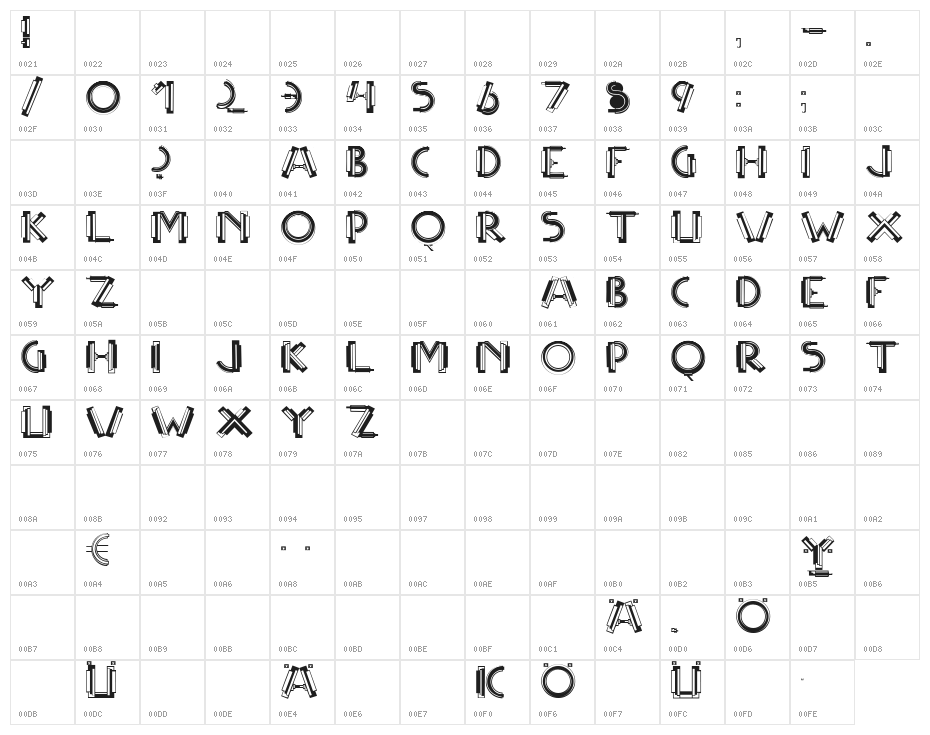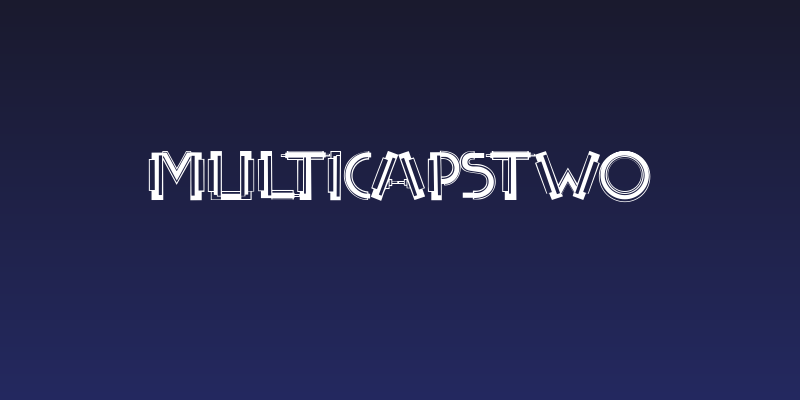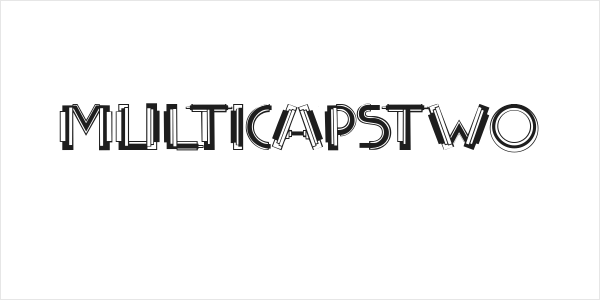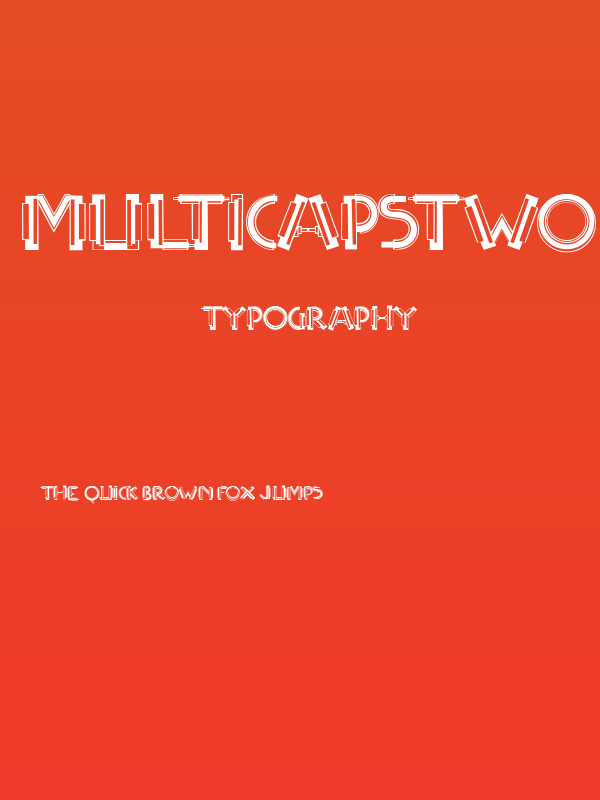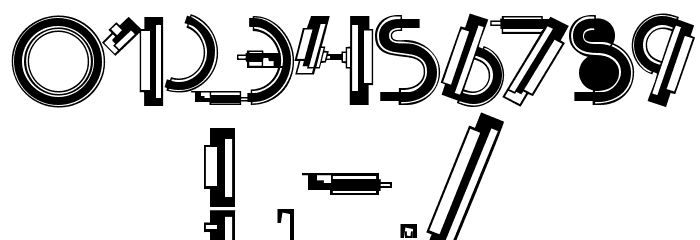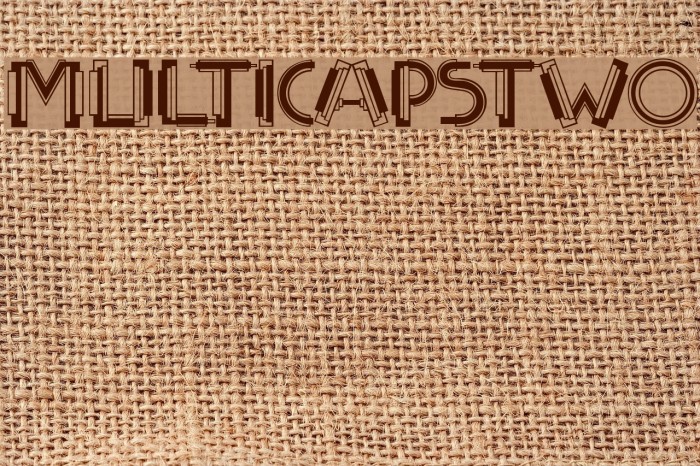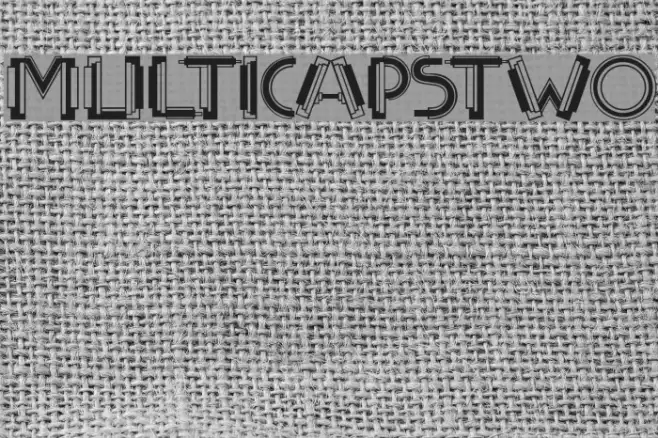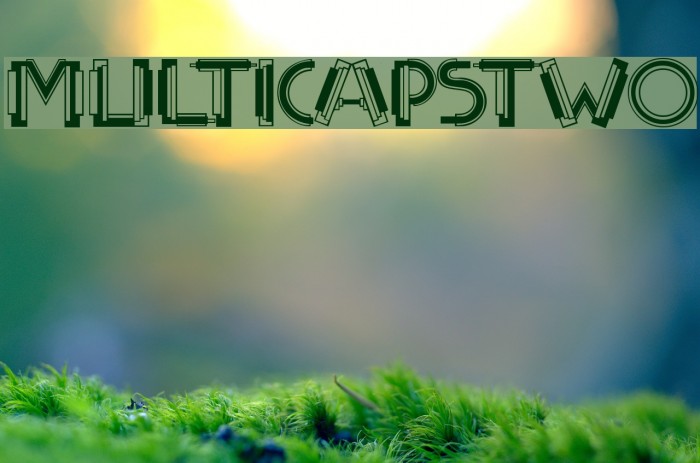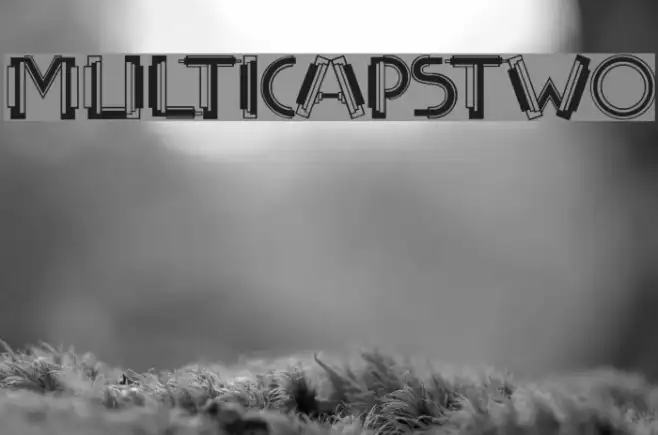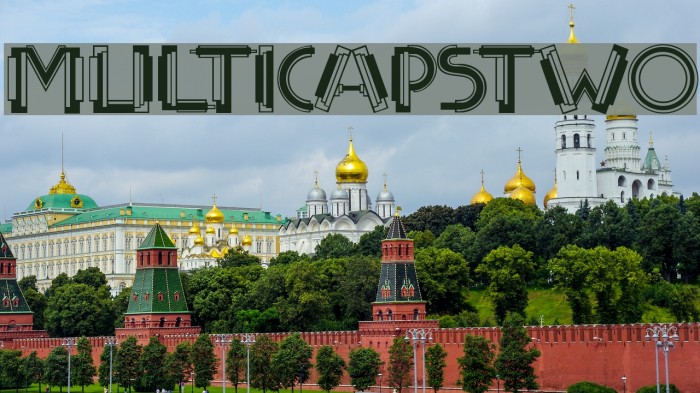
MultiCapsTwo Font
MultiCapsTwo Description
This font features a bold and striking design with a three-dimensional effect, achieved through the use of layered outlines and shadows. The characters are uppercase, with a geometric and angular style that gives them a modern and industrial feel. The letters are constructed with thick lines and sharp angles, creating a sense of depth and movement. The numbers and special characters follow the same design principles, ensuring consistency across the typeface. This font is ideal for projects that require a strong visual impact and a contemporary aesthetic.
| Proposed Projects | Ideal for posters, logos, headlines, and any design requiring a bold statement. |